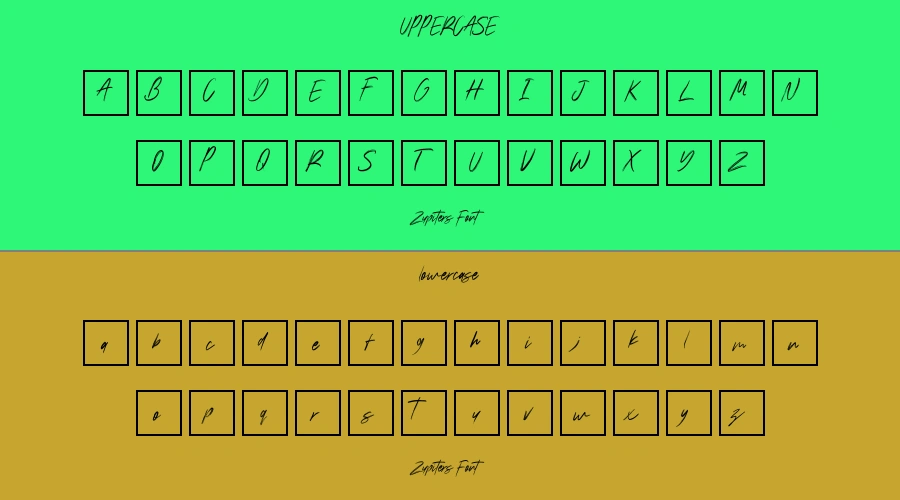
About Zupiters Font
Zupiters Font represents a sophisticated approach to type design, balancing flourished entries with professionalism. Perfect for scientific journals, this font family showcases impressive adaptability and user trust throughout its character set. Designers appreciate its versatility and reliability.
Designers will appreciate nuanced touches including dramatic swashes and isolated forms, adding sophistication to any project. These features become apparent in historical documents, where multi-color registration matters most. The careful treatment of spine curvature and design lineage ensures optimal performance.